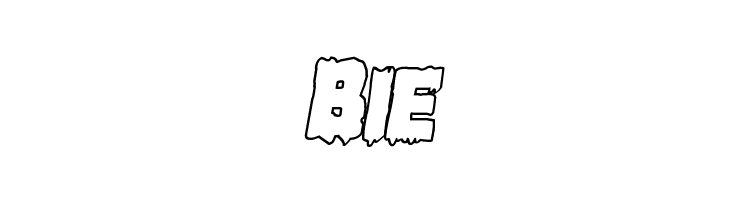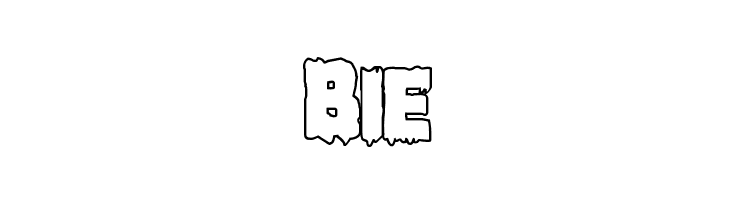
Bold, dripping display font with a horror-inspired style.
Bold, dripping display font with a horror theme.
A bold, dripping decorative font with a horror or slime effect.
Bold, cartoonish display font with a spooky, dripping effect.
Bold, distressed display font with dripping, horror-inspired effects.
A bold, dripping decorative font with a horror or blood theme.
( Fonts by DM Letter Studio )
Bold, dripping display font with a spooky, retro Halloween style.
( Fonts by AEN Creative Studio )
A bold, dripping display font ideal for horror or Halloween themes.
A bold, horror-themed decorative font with sharp, dripping strokes.
( Fonts by AEN Creative Studio )
A bold, dripping decorative font ideal for spooky or Halloween themes.
( Fonts by Yoga Letter )
Bold, dripping display font with a horror-inspired style.
( Fonts by ReyreyBlue )
Bold, dripping display font with a spooky, playful vibe.
( Fonts by Lettersiro Studio )
A bold, dripping horror display font with jagged, irregular forms.
( Fonts by Teenage Foundry )
A bold, dripping display font ideal for horror or Halloween themes.
( Fonts by Scratchones )
Dripping, spooky hand-drawn script with bold, playful strokes.
( Fonts by AEN Creative Studio )
Bold, dripping decorative font with a spooky, playful vibe.
( Fonts by PutraCetol Studio )
A bold, dripping decorative font with gothic and horror vibes.
( Fonts by Gilang Ternadho )
Distressed, horror-themed display font with jagged, dripping edges.
( Fonts by PutraCetol Studio )
A bold, dripping horror-themed decorative font.
( Fonts by Scratchones )
A spooky, dripping decorative font with tall, narrow letterforms.
( Fonts by PutraCetol Studio )
Dripping, horror-themed decorative display font.
( Fonts by Julien Halgand )
A dripping, Halloween-themed decorative font with playful, spooky details.
( Fonts by Julien Halgand )
A decorative, dripping Halloween-themed display font.
( Fonts by PutraCetol Studio )
A bold, horror-themed display font with dripping, textured letterforms.
( Fonts by PutraCetol Studio )
Bold, dripping letters with ghost motifs for a spooky, playful effect.
( Fonts by PutraCetol Studio )
Dripping, skull-embellished decorative font for horror or Halloween themes.
( Fonts by PutraCetol Studio )
A bold, dripping decorative font with a spooky, haunted appearance.
( Fonts by PutraCetol Studio )
A bold, dripping horror display font with cartoon brains and eyes.
( Fonts by PutraCetol Studio )
A bold, dripping display font ideal for horror themes.
( Fonts by PutraCetol Studio )
Bold, dripping display font with a spooky, playful vibe.
( Fonts by PutraCetol Studio )
A bold, horror-themed display font with dripping and mechanical motifs.
( Fonts by Scratchones )
A dripping, spooky script font with a playful Halloween vibe.
( Fonts by Scratchones )
A whimsical script font with a dripping, spooky effect.
( Fonts by Scratchones )
Tall, narrow, dripping decorative font with a spooky vibe.
( Fonts by Mozatype )
Bold, dripping display font with a horror theme.